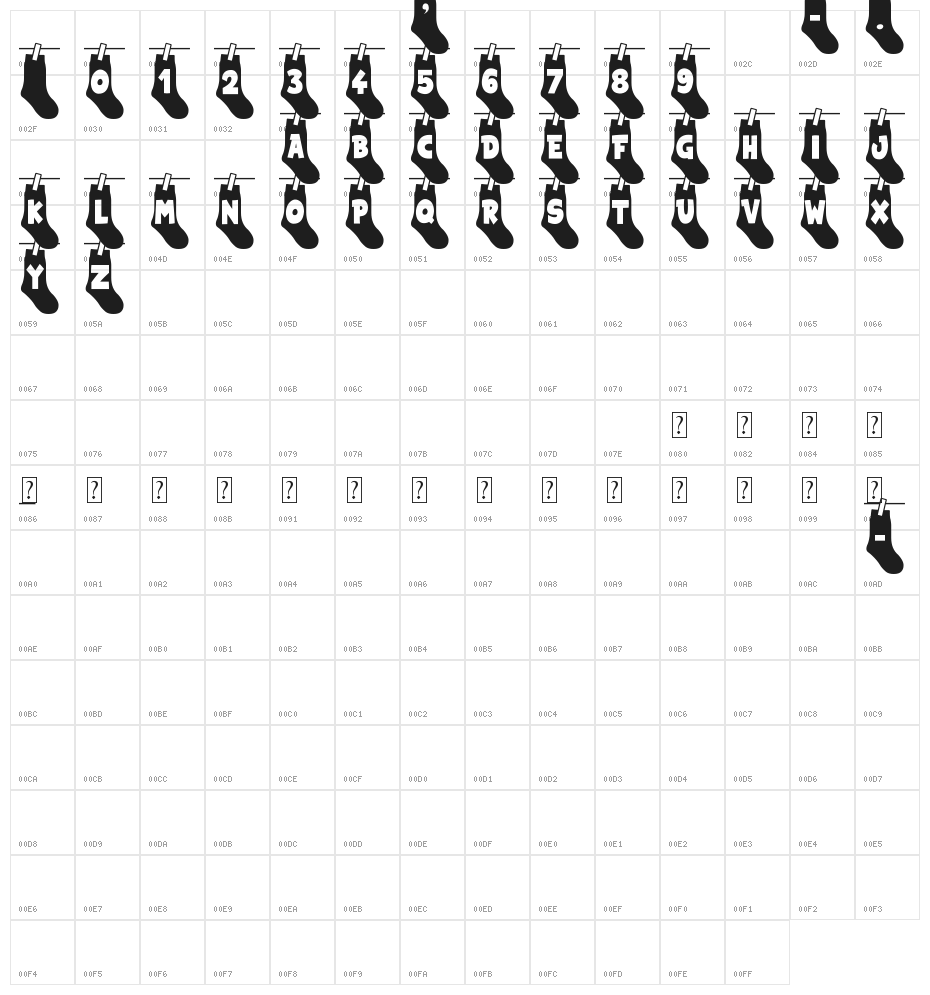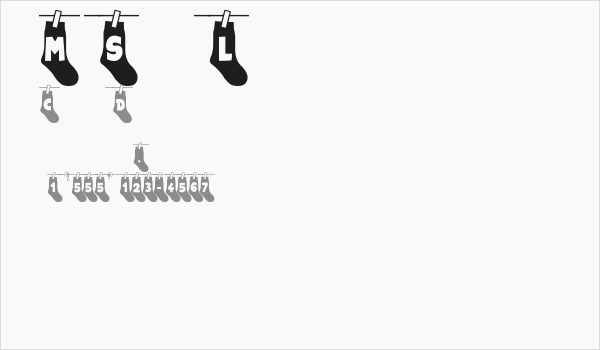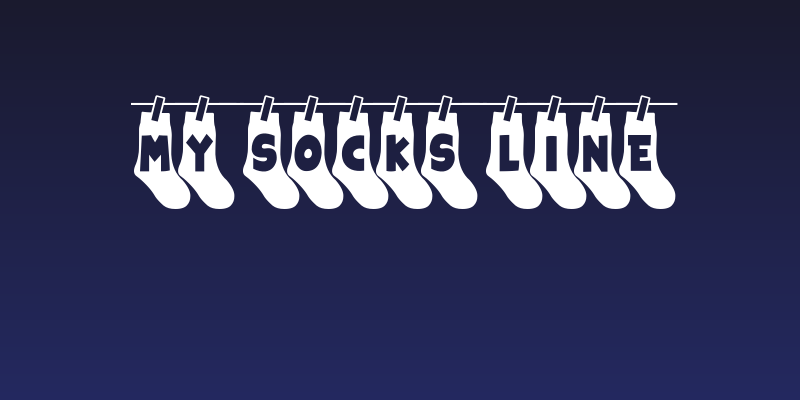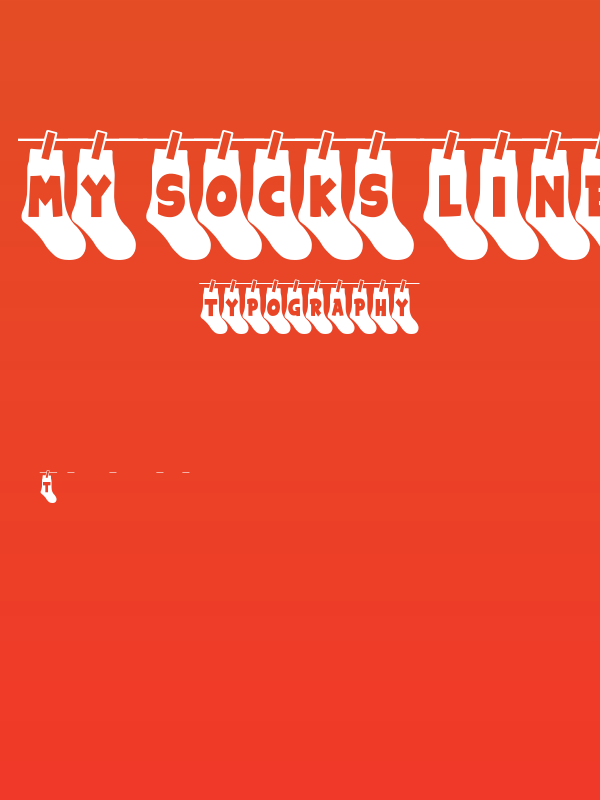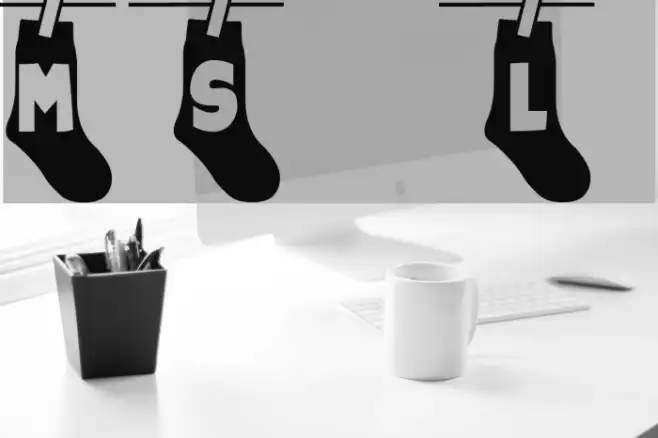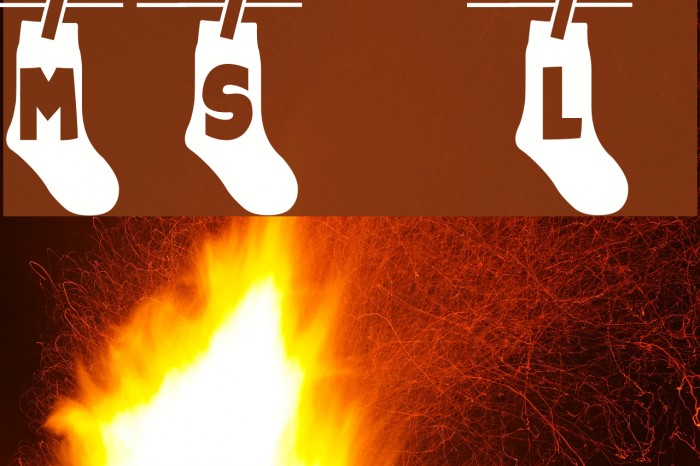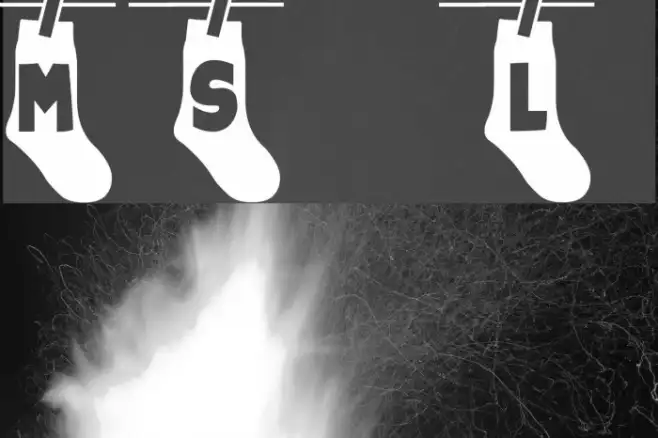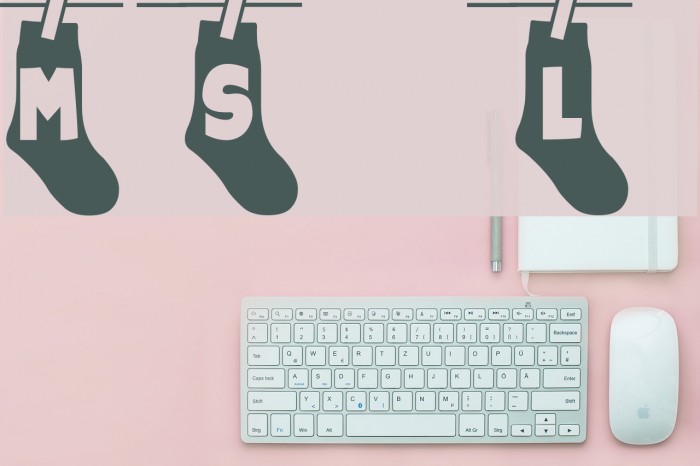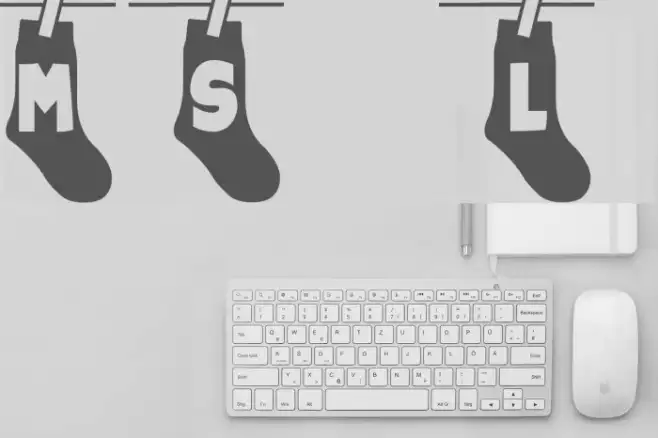
My Socks Line Font
My Socks Line Description
This playful and whimsical font features characters designed to resemble socks hanging on a clothesline. Each letter and number is encased within a sock shape, creating a unique and eye-catching display. The bold, blocky letters stand out against the sock background, making it ideal for fun and creative projects. The font has a consistent width and a medium contrast in stroke thickness, giving it a balanced and approachable appearance. The character spacing is normal, ensuring readability while maintaining its decorative charm.
| Proposed Projects | Ideal for children's books, playful branding, party invitations, and themed event posters. |